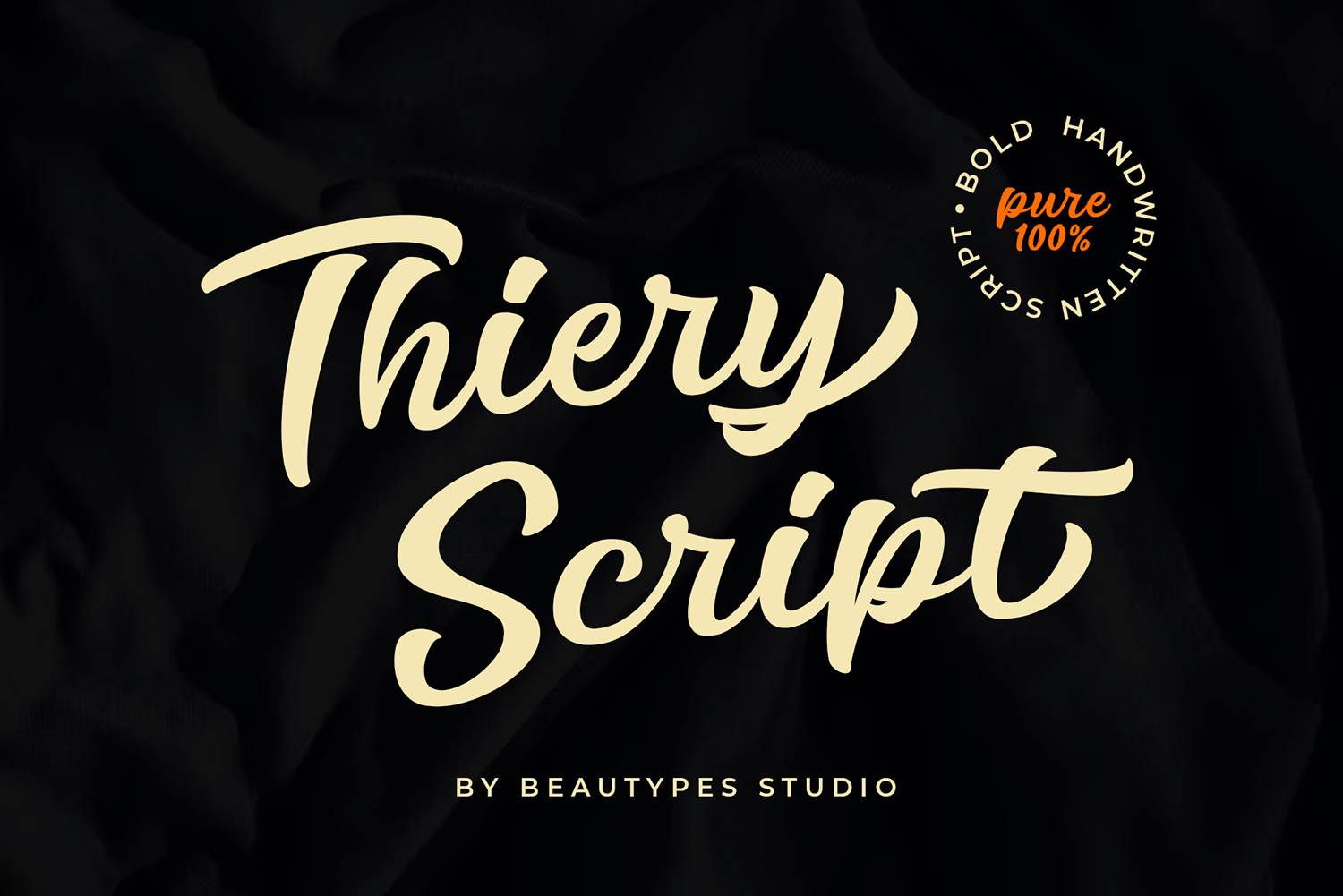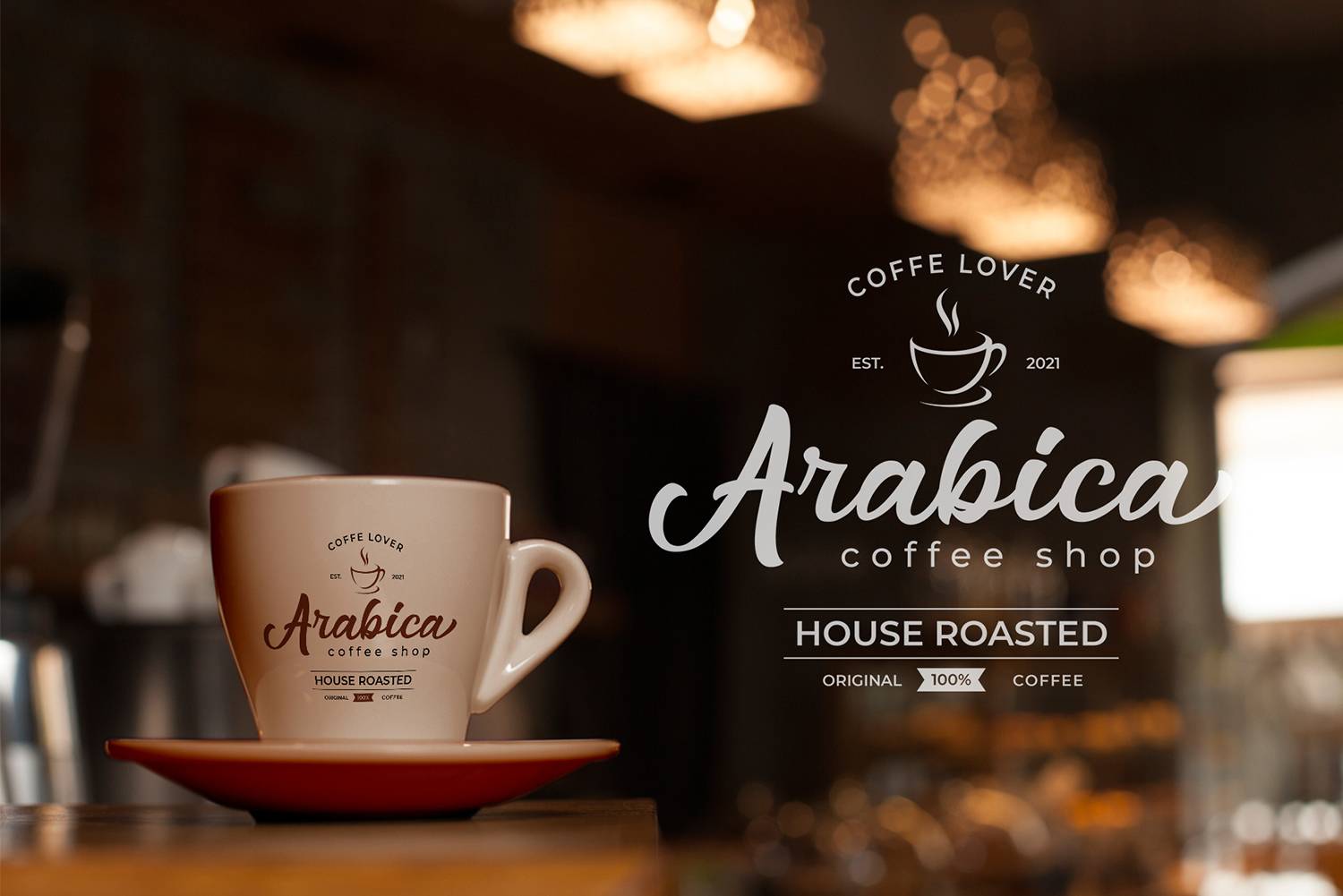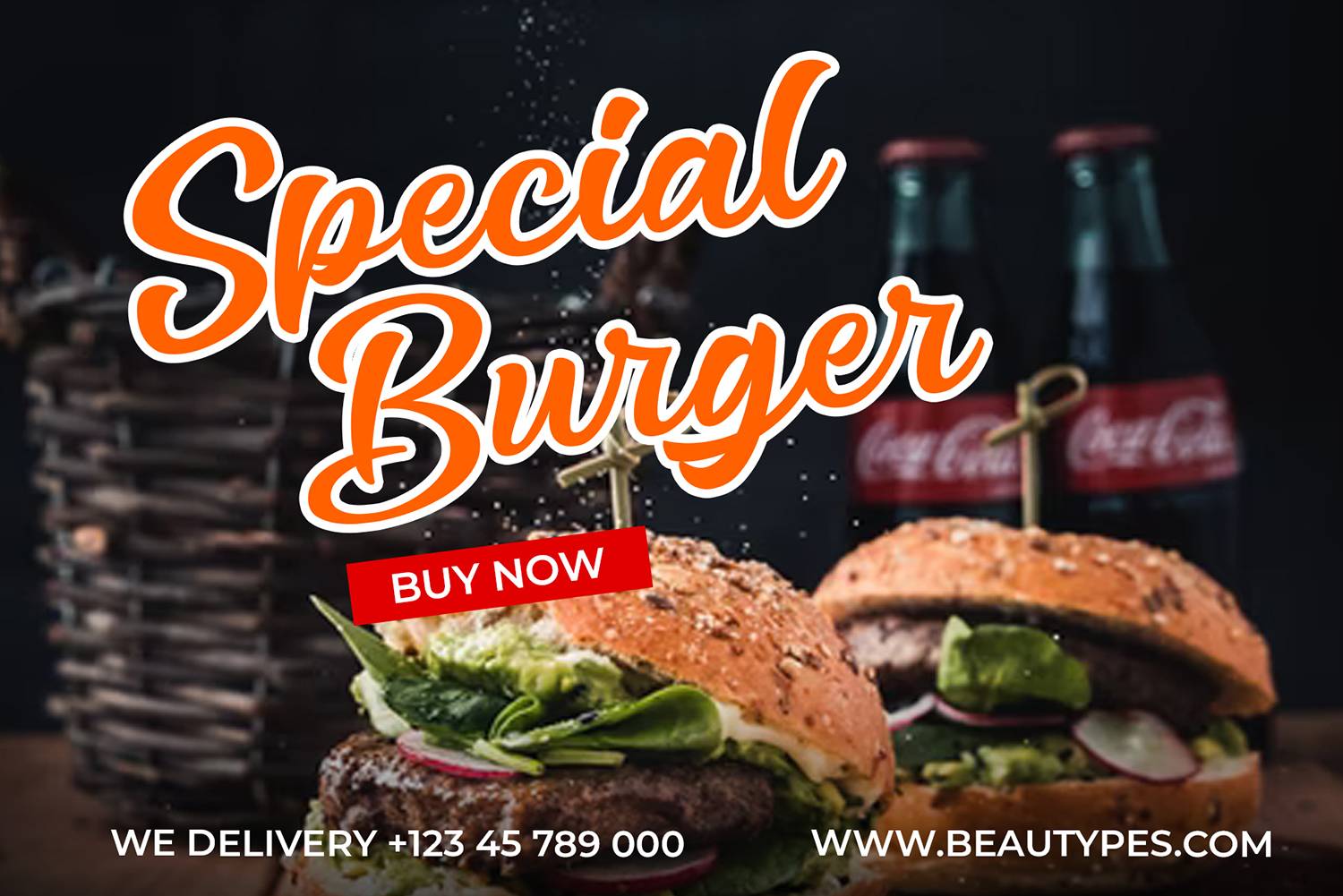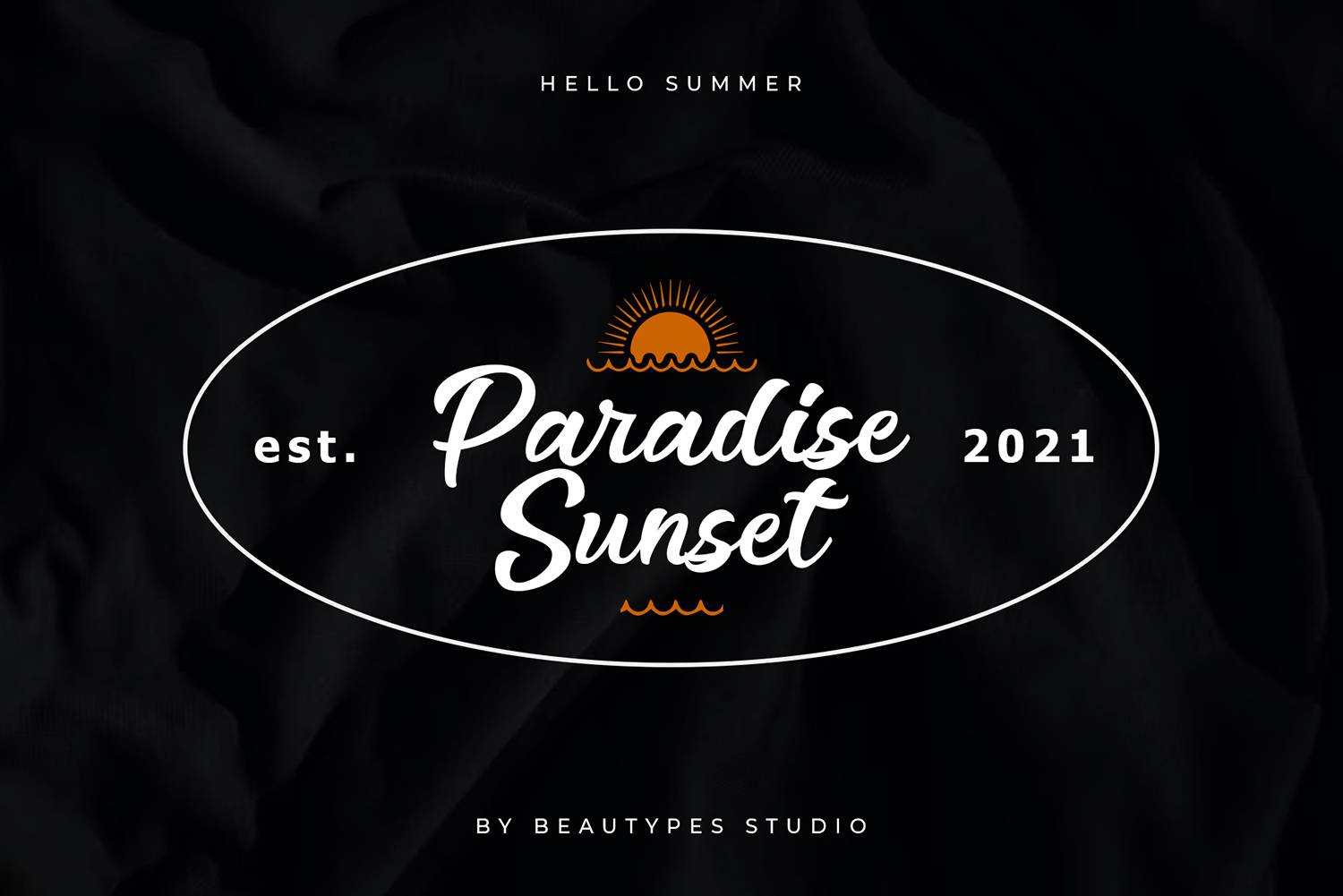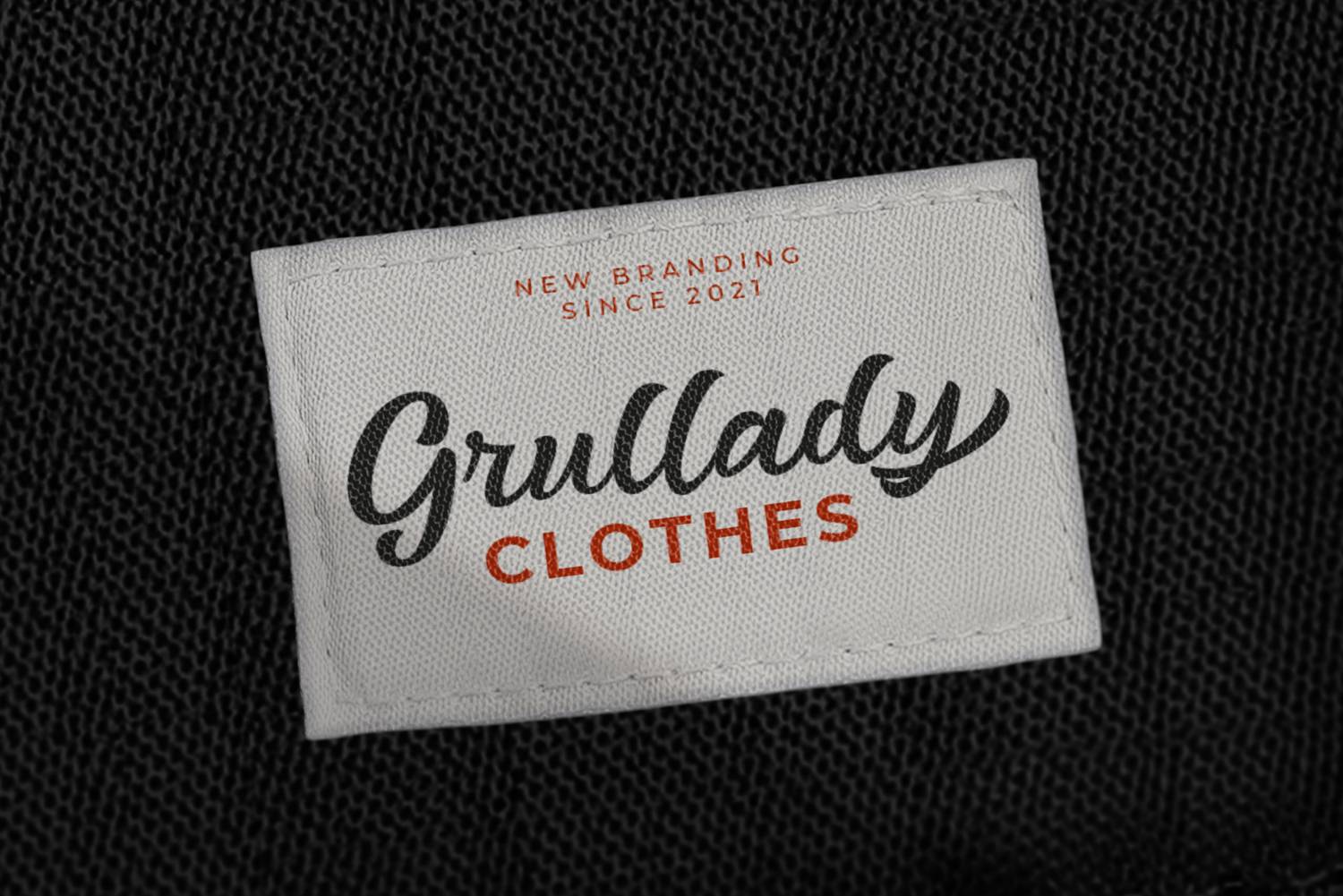
Thiery Script is a lively and elegant script font characterized by smooth, flowing strokes and a balanced contrast between thick and thin lines. Its casual yet refined style makes it perfect for branding, invitations, and creative projects that require a personal, handwritten touch with a modern flair. This font shines in headlines, logos, and packaging where a warm, approachable personality is desired.
Thiery Script Font
About Thiery Script Font
| Font family | Thiery Script Font |
| Designer | Beautypes Studio |